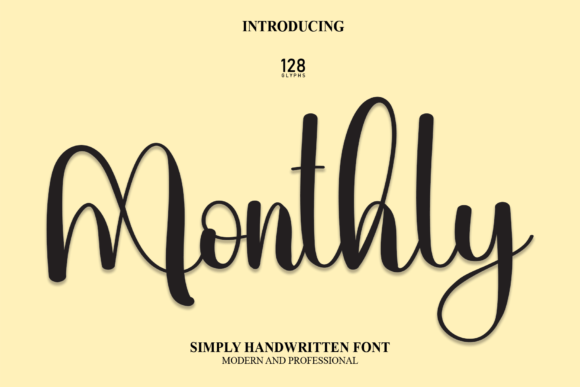
Introducing the Monthly Font - a captivating script font family brimming with charm and elegance, meticulously crafted by andikastudio. Its enchanting strokes evoke a sense of playfulness and sophistication, making it the perfect choice for a variety of creative projects.
Immerse yourself in the world of Monthly Font, where your designs come alive with a touch of whimsy and refinement. With its irresistible allure, this font family captivates the hearts of those seeking unique and expressive typography. Step into a realm of creativity where your words dance with grace, leaving an unforgettable impression on your audience.
With Monthly Font, transform ordinary invitations into extraordinary works of art. Picture your child's birthday invitation adorned with this enchanting script, conveying a sense of excitement and joy that sets the tone for a memorable celebration. Its playful nature adds a touch of magic to thank-you cards, making every expression of gratitude truly special.
Unleash the power of Monthly Font to create captivating quotes that resonate with your audience. Its elegant curves and delicate details bring depth and emotion to your words, making them leap off the page and into the hearts of your readers. Turn your greeting cards into heartfelt expressions of love, friendship, and appreciation, leaving a lasting impact on those who receive them.
Elevate your branding with the sophistication of Monthly Font. Design logos and business cards that exude professionalism and creativity, capturing the attention of potential clients and partners. Each stroke of this font family speaks volumes about your brand's personality, setting you apart from the crowd and leaving an indelible mark in the minds of your customers.
Discover the versatility of Monthly Font, a true chameleon in the world of typography. Its adaptability shines through in any design project, from playful children's invitations to elegant wedding stationery. Its ability to blend seamlessly with various design elements makes it a versatile choice for every creative endeavor.
Embrace the beauty of Monthly Font and embark on a typographic journey like no other. Let your imagination soar as you explore the endless possibilities of this enchanting font family. Whether you're a seasoned designer or just starting your creative journey, Monthly Font will ignite your passion and transform your designs into captivating masterpieces.